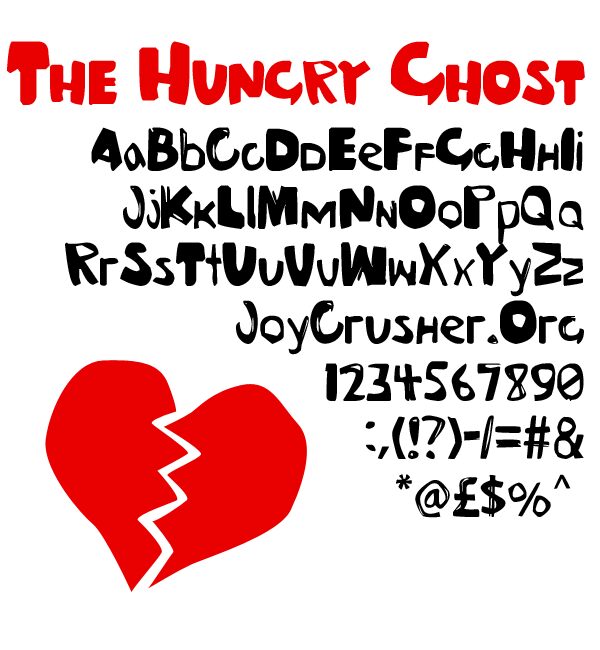
The Hungry Ghost by Lauren Harrison of joycrusher.org is a free hand-painted display font with chunky, irregular strokes and a mischievous cartoon manner rooted in quick physical brushwork. The letters change width abruptly, with blunt edges, uneven curves, and lively shifts in height that preserve the rough snap of painted lettering.
It can turn posters or game logos into part of the artwork, especially for spooky comedy and children's books. On snack packaging and Halloween merchandise, the lopsided silhouettes can echo hand-cut monsters, painted signs, or simple character illustrations as active pieces of the scene rather than behaving like neutral lettering.
The Hungry Ghost
Lauren Harrison